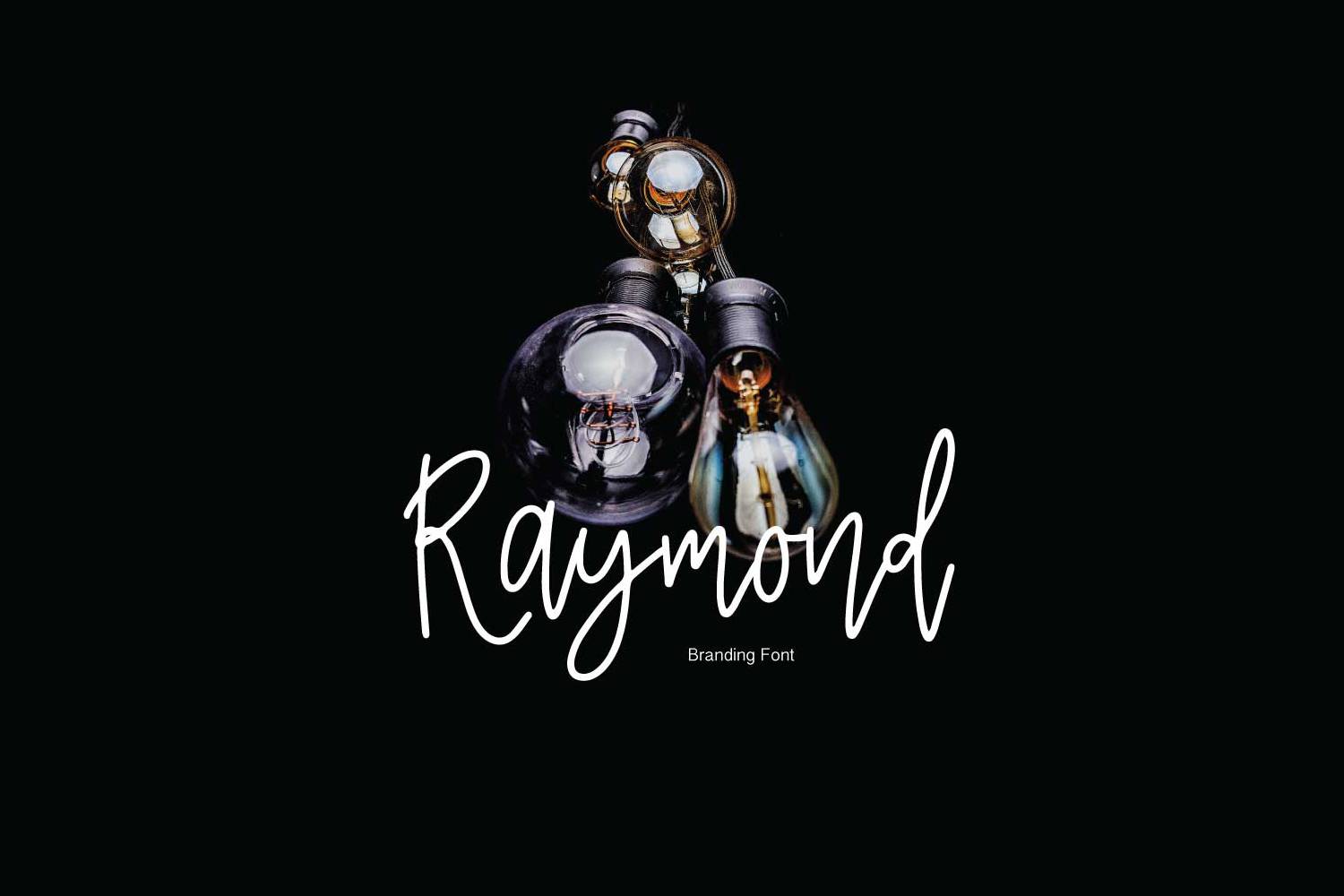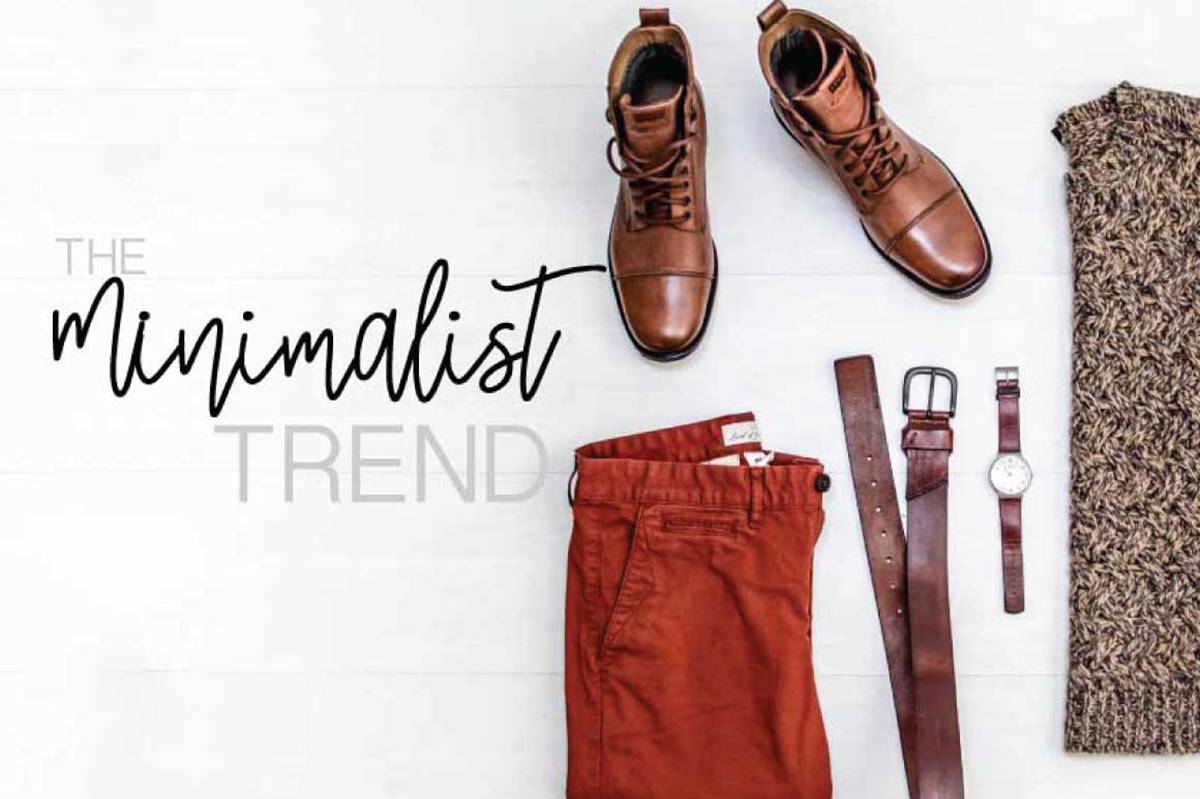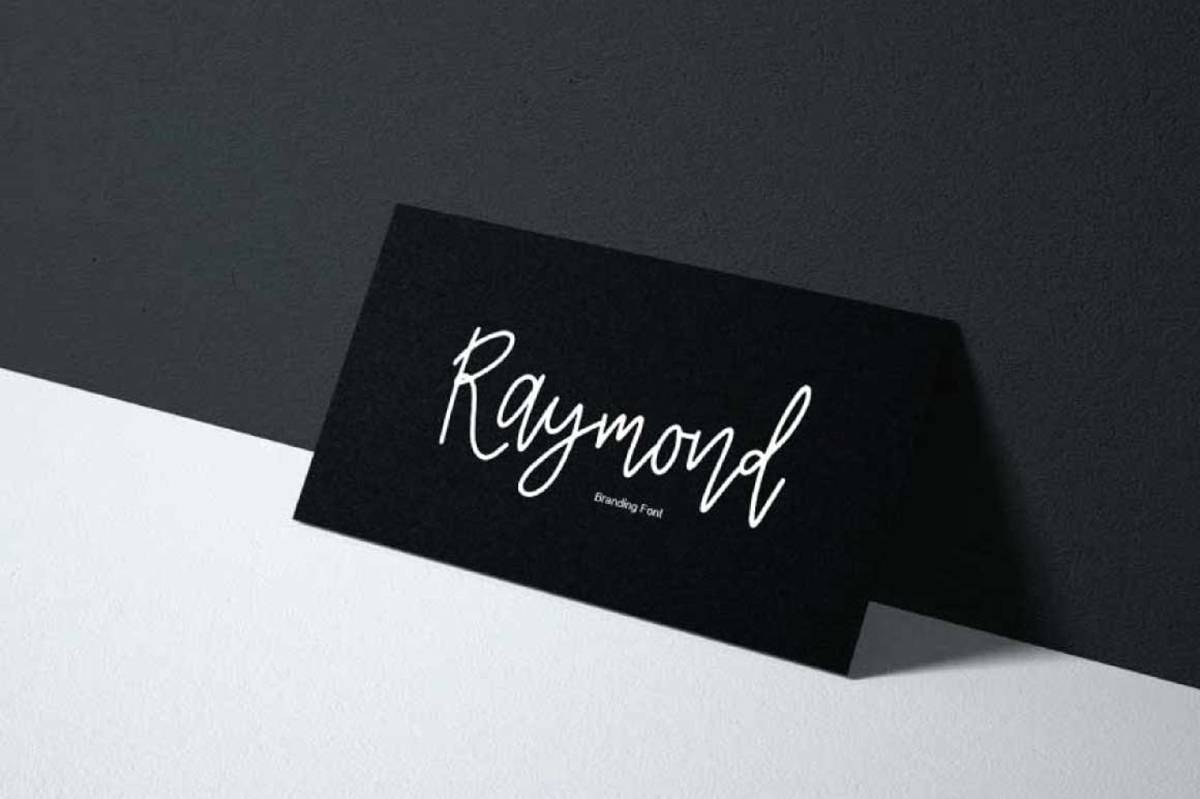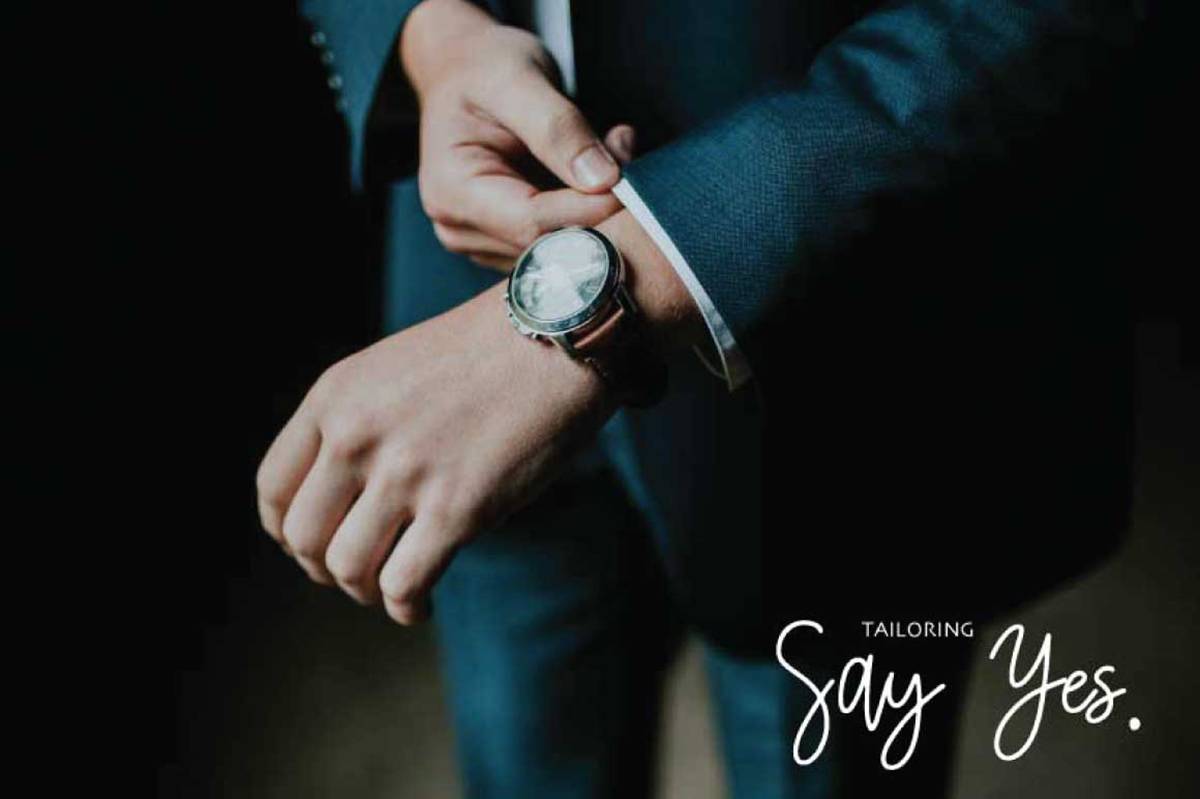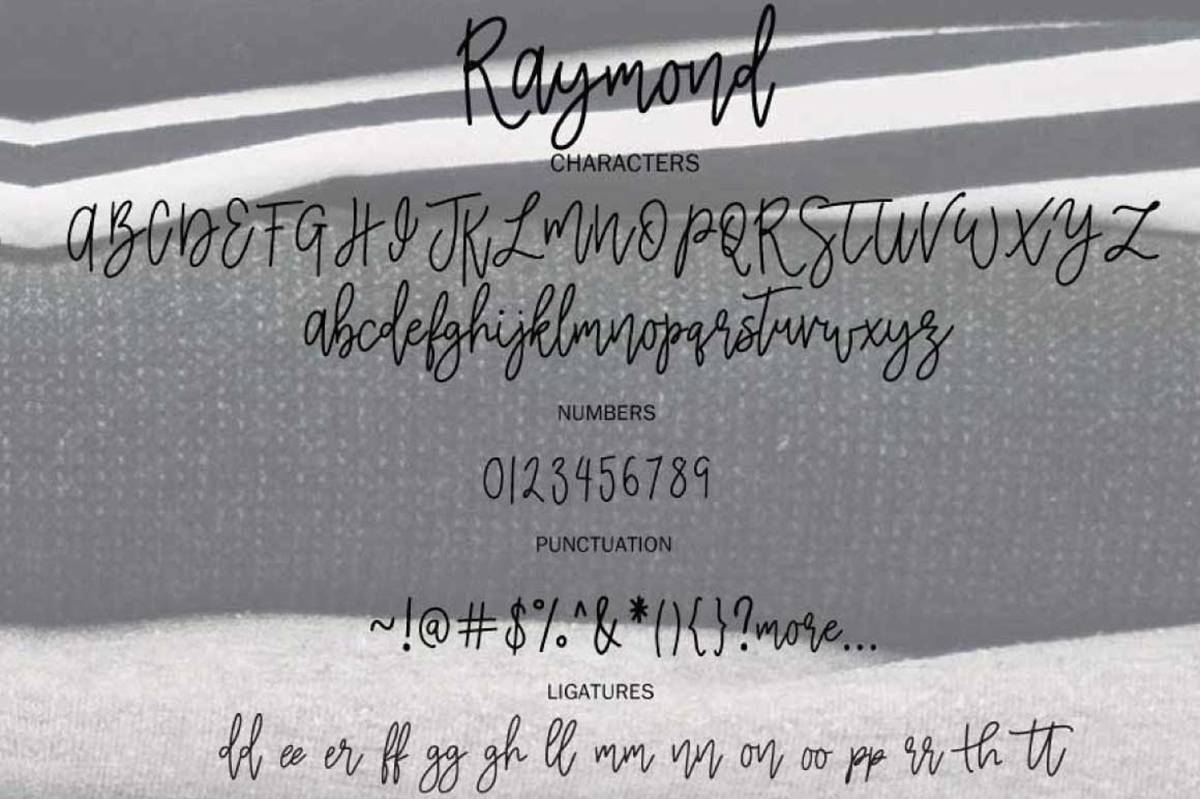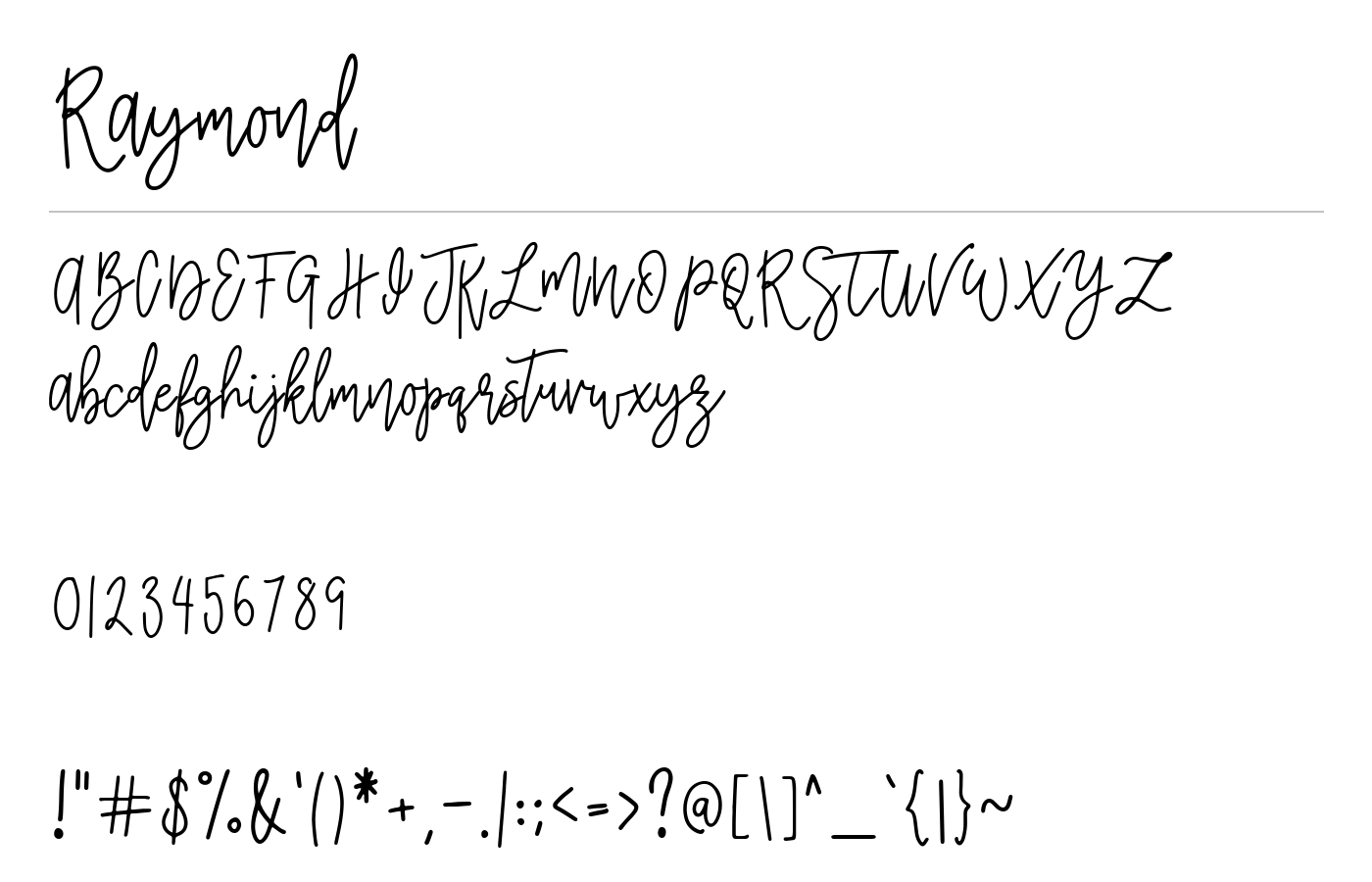
RayMond is a delicate, handwritten script font with a casual and elegant feel. Its tall, slender letterforms are characterized by consistent light strokes and a natural, flowing rhythm that mimics genuine handwriting, making it perfect for personal branding, invitations, or feminine-focused designs. This font’s airy and approachable style works well for logos, social media graphics, and any design seeking a modern yet warm, authentic touch.
RayMond Font
About RayMond Font